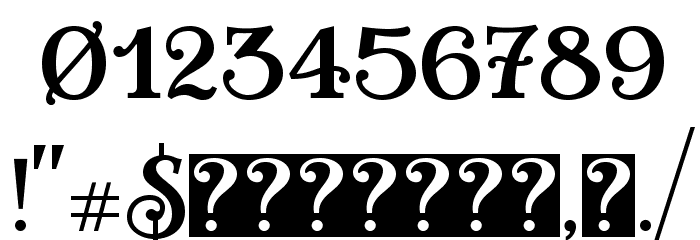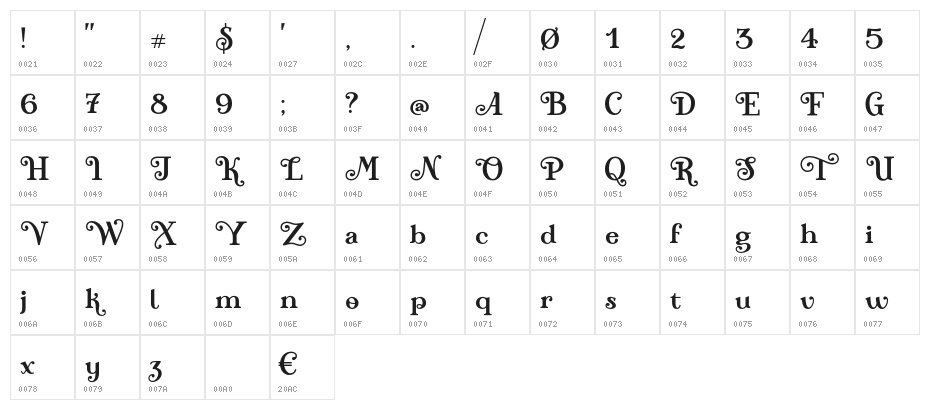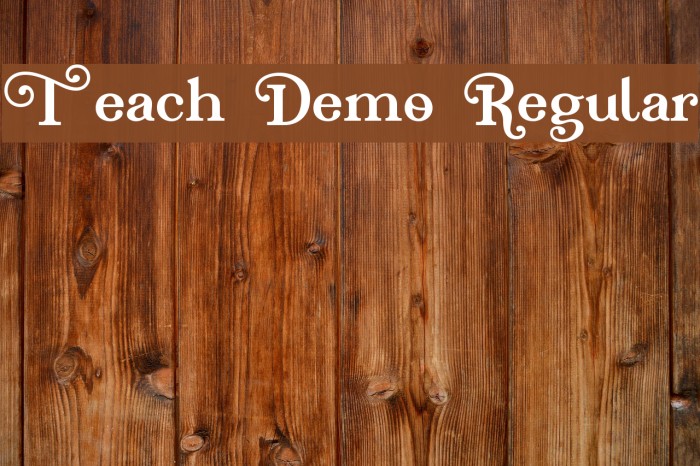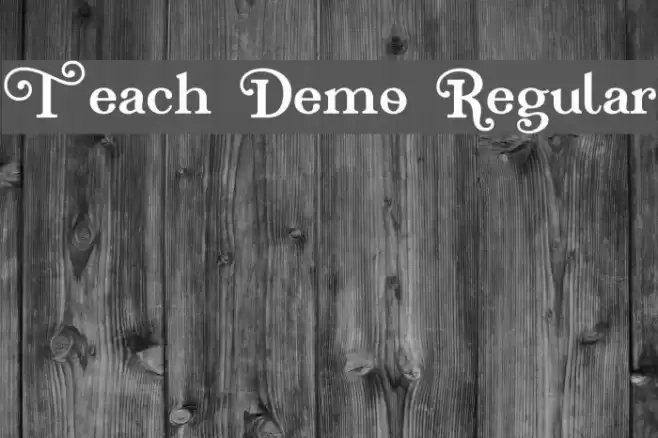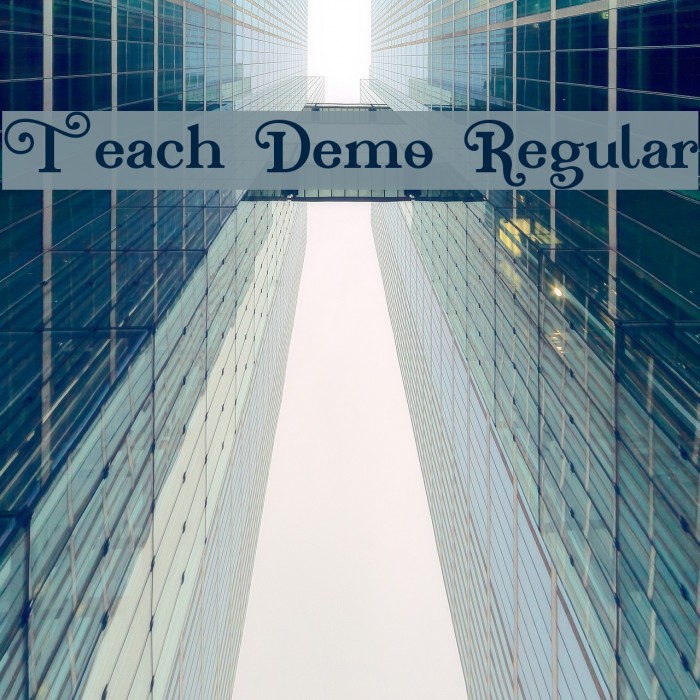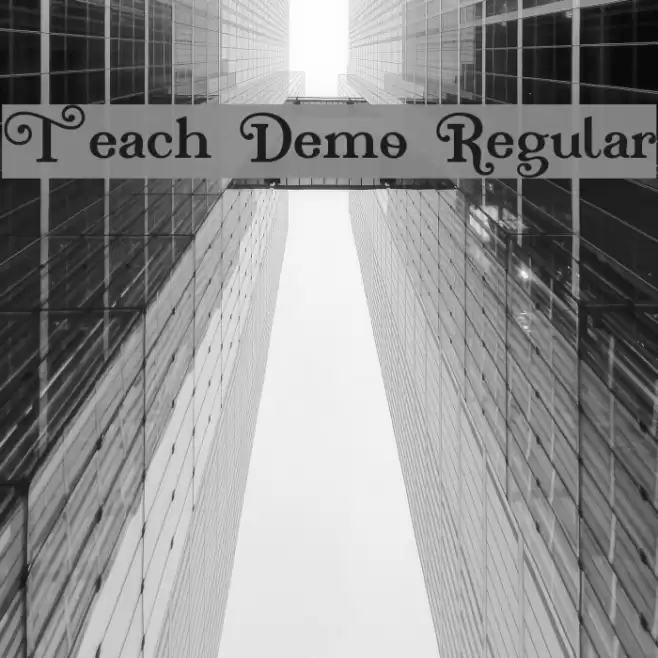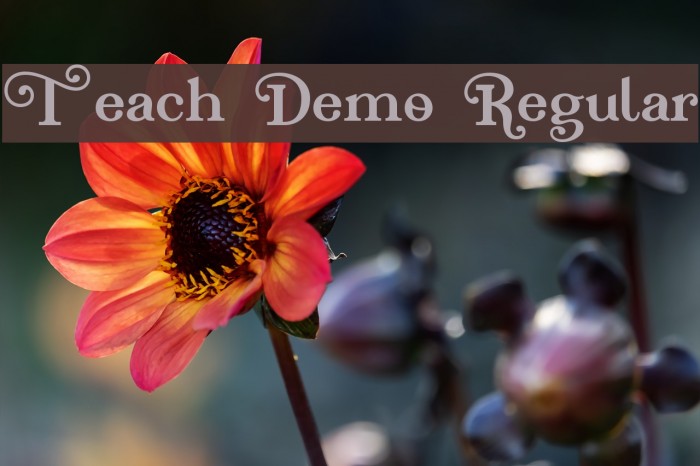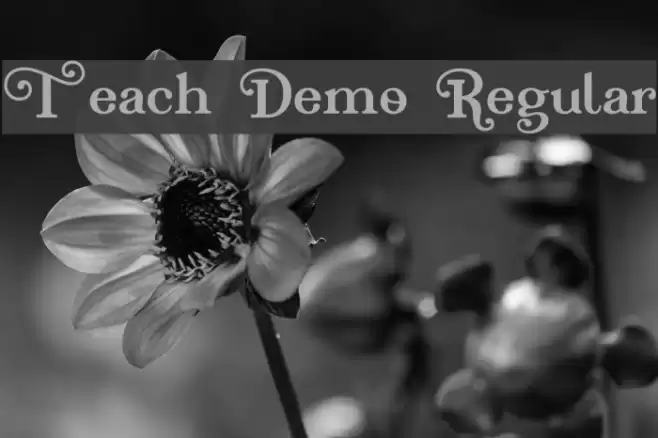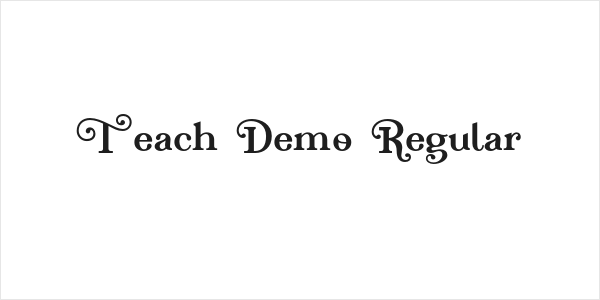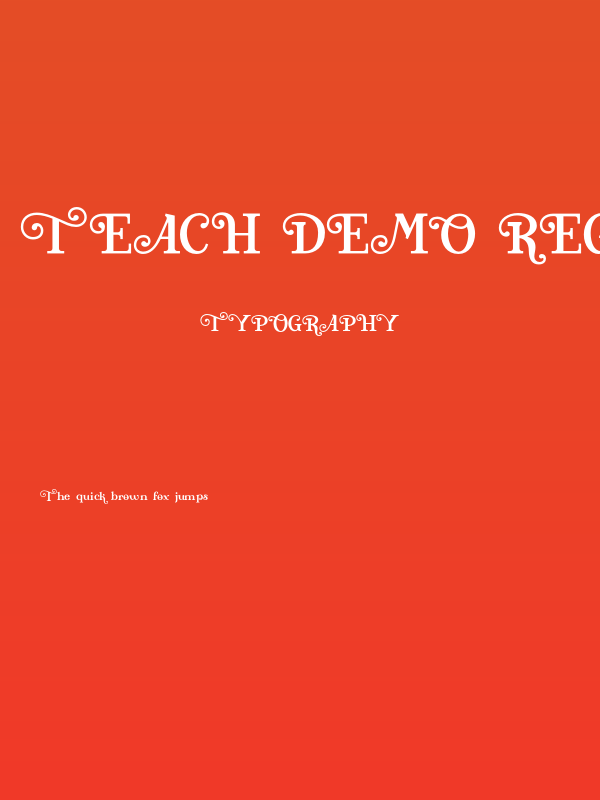
Teach Demo Regular Font
Teach Demo Regular Description
This font features a whimsical and decorative style, characterized by its playful curls and swirls on the serifs and terminals. The uppercase letters exhibit a unique flair with exaggerated curves, making them stand out with a touch of elegance. The lowercase letters maintain a consistent style, with rounded forms and subtle embellishments that add to the overall charm. The numerals are bold and clear, with slight decorative elements that align with the font's artistic theme. Special characters are designed with creativity, incorporating the same ornamental details. This font is ideal for projects that require a touch of personality and artistic flair.
| Proposed Projects | Ideal for invitations, greeting cards, logos, and branding materials that seek a whimsical and artistic touch. |